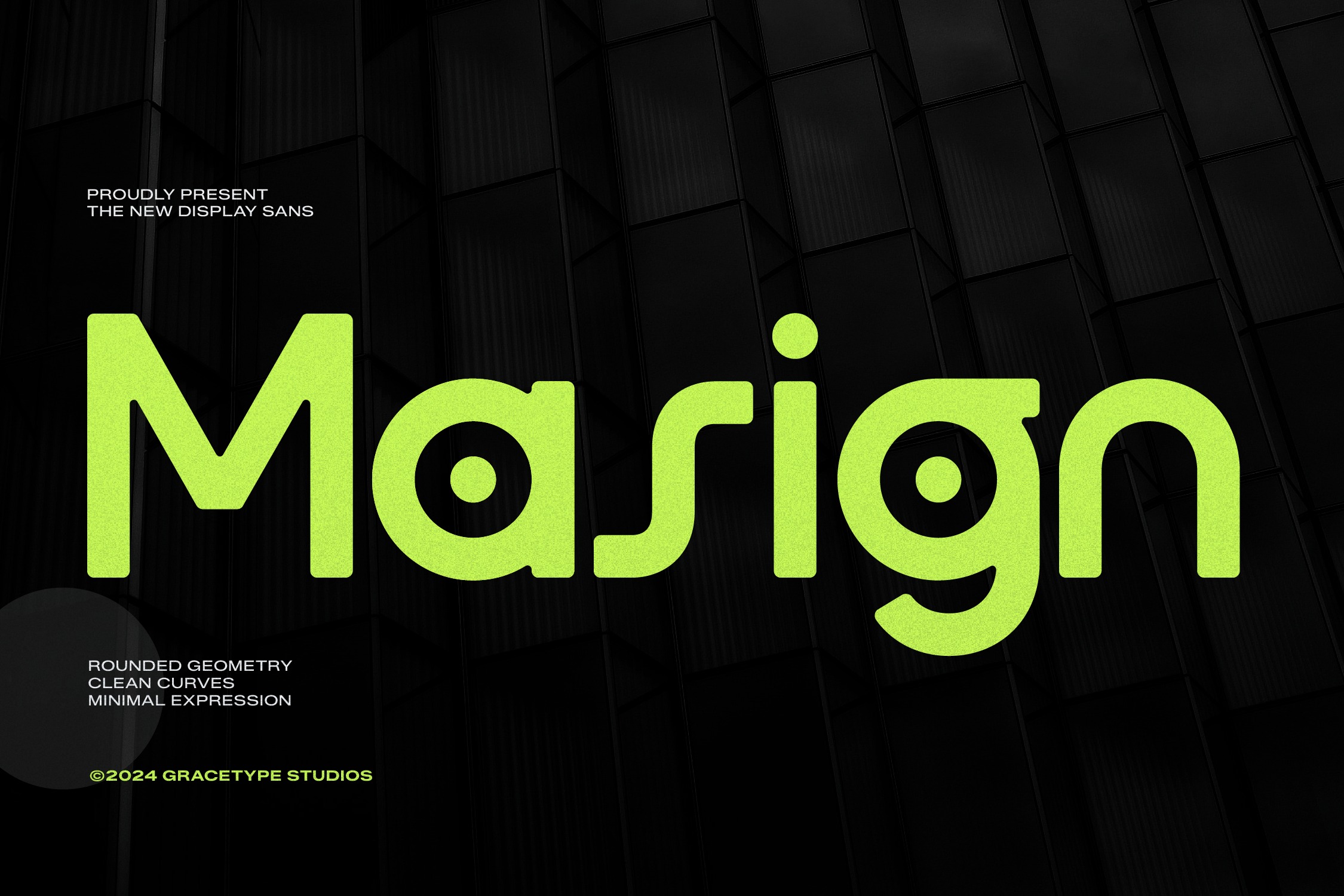
Masign – Sans Serif Diplay Font
Masign – Sans Serif Diplay Font is a distinctive and expressive font crafted to bring personality, structure, and creative energy into your projects. Masign | New Display Sans, from Gracetypestudio, suitable for any projects such as: logos, branding projects, homeware designs, product packaging, mugs, quotes, posters, shopping bags, t-shirts, book covers, name card, invitation cards, greeting cards, label, photography, watermark, special events, and all your other lovely projects that need a Retro Typeface taste.